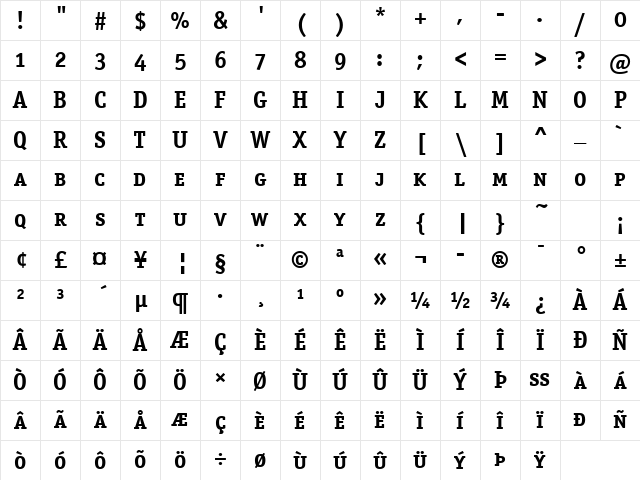
OfficinaSerSCITCTT Bold Free Font
OfficinaSerSCITCTT Bold
Foundry: International Typeface Corporation
Designer: Erik Spiekermann / Ole Schaefer
Design Context for OfficinaSerSCITCTT
OfficinaSerSCITCTT is a composed and adaptable typeface that performs quietly and consistently across a wide range of design contexts. Its bold stroke weight gives it real presence on the page.